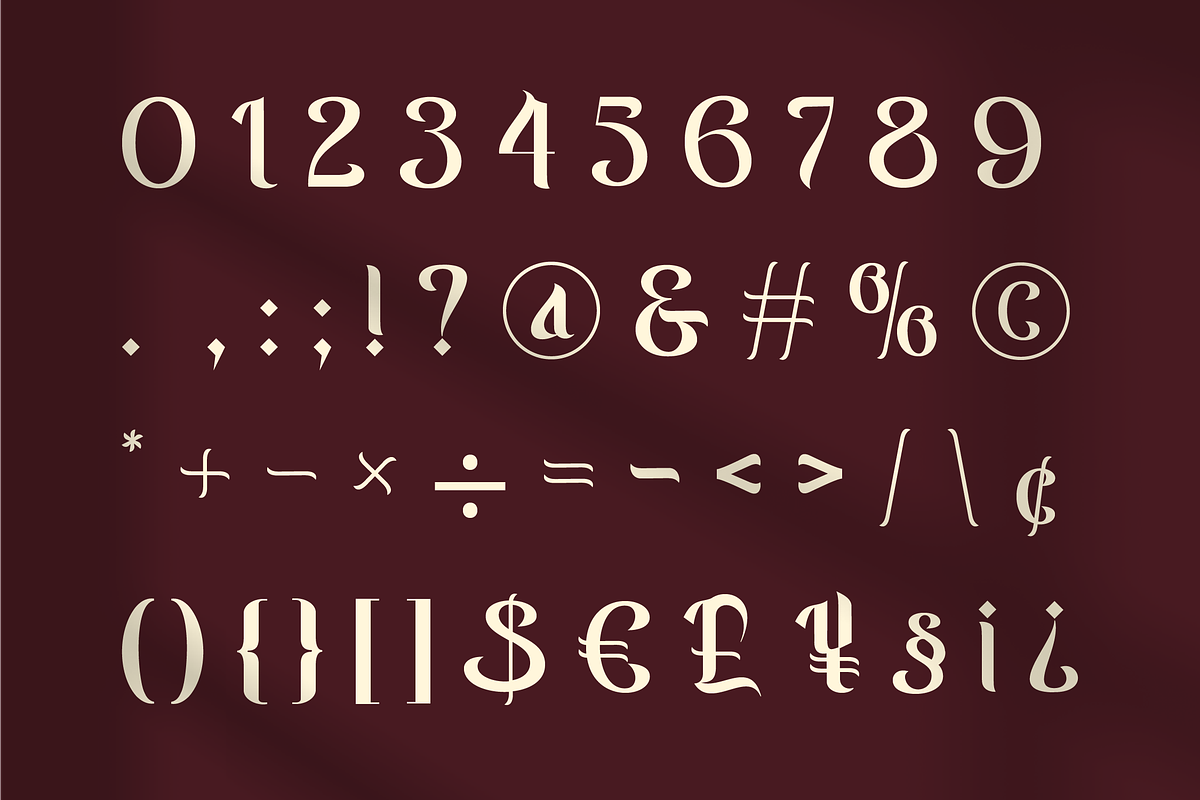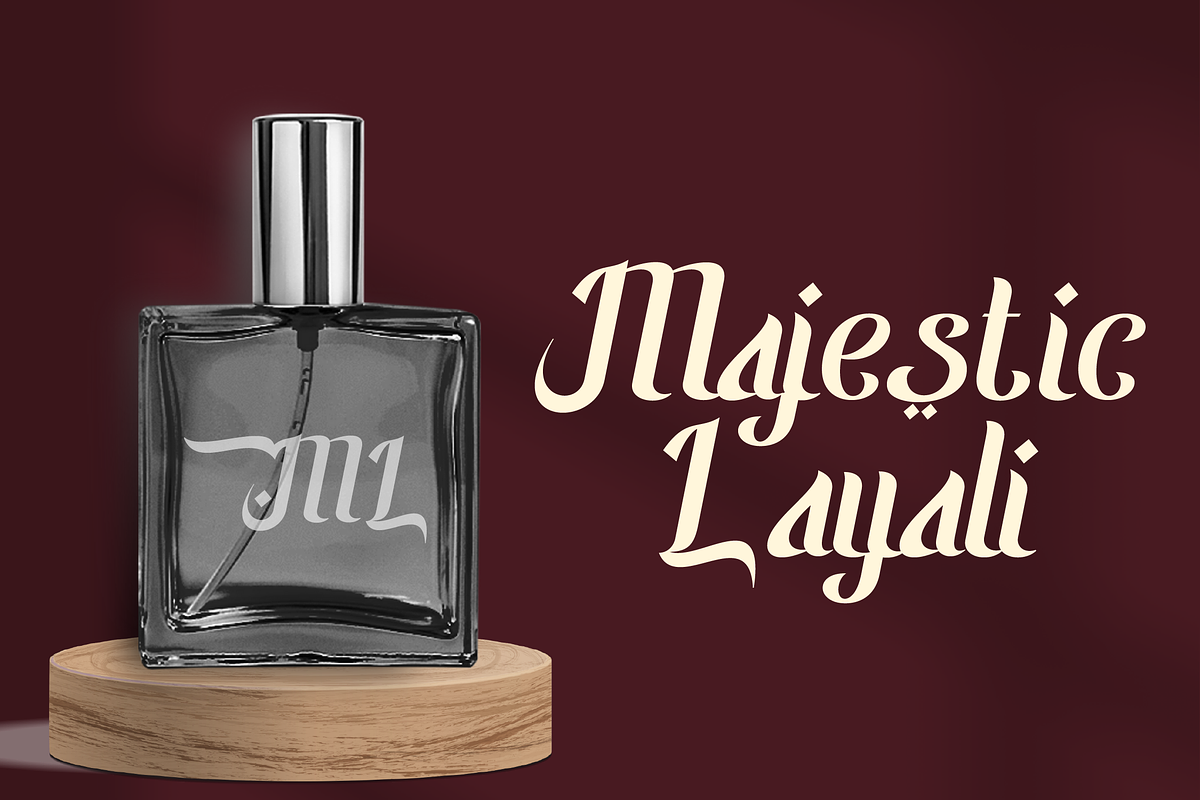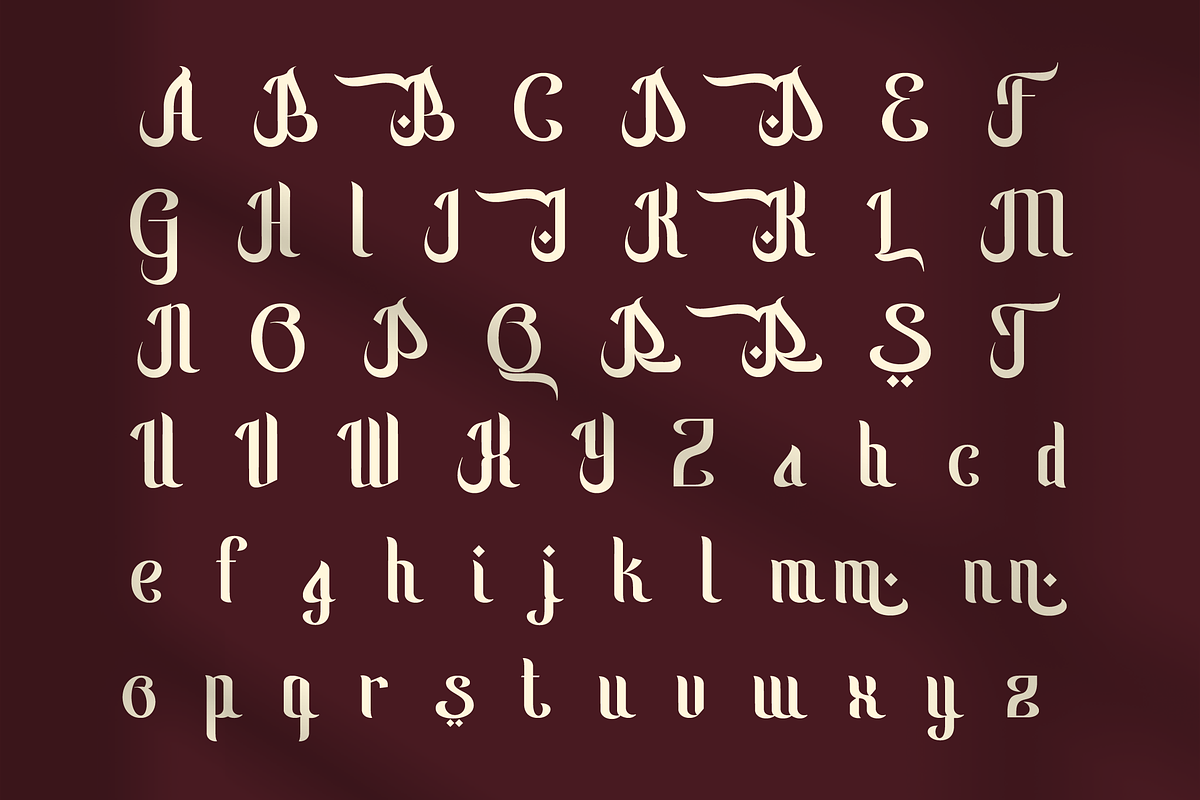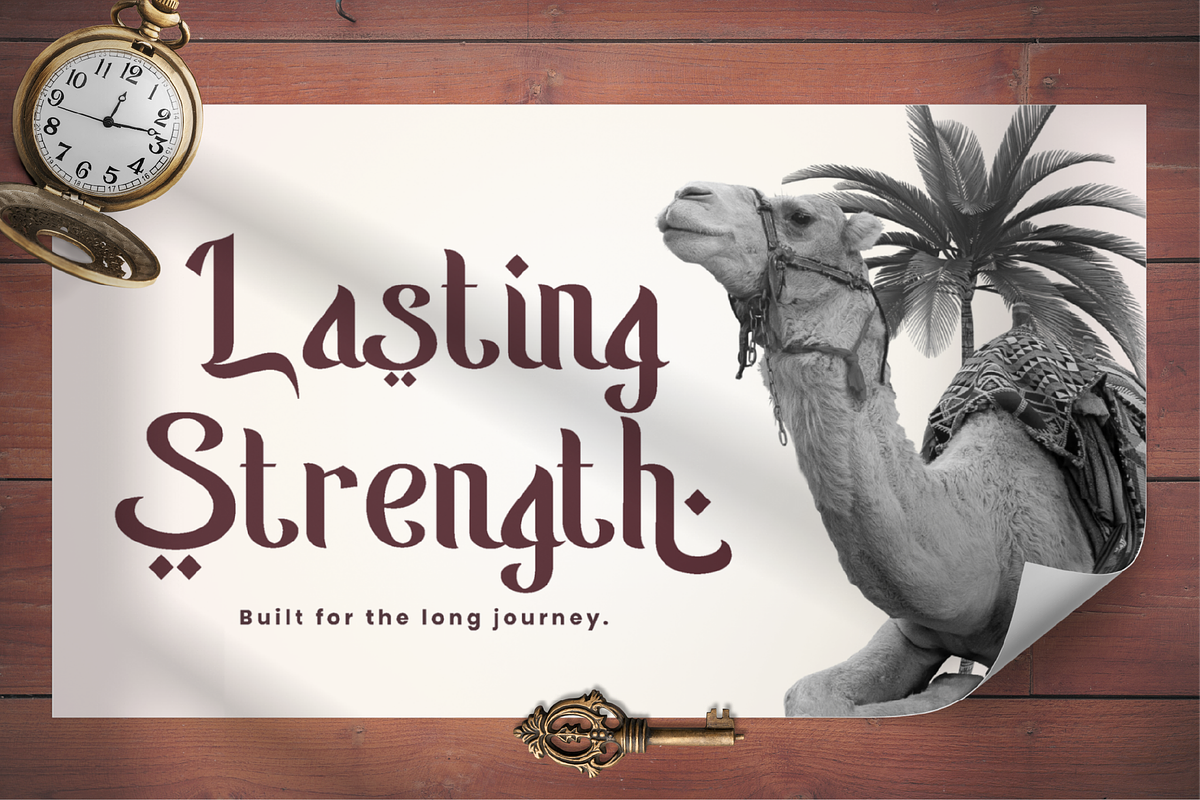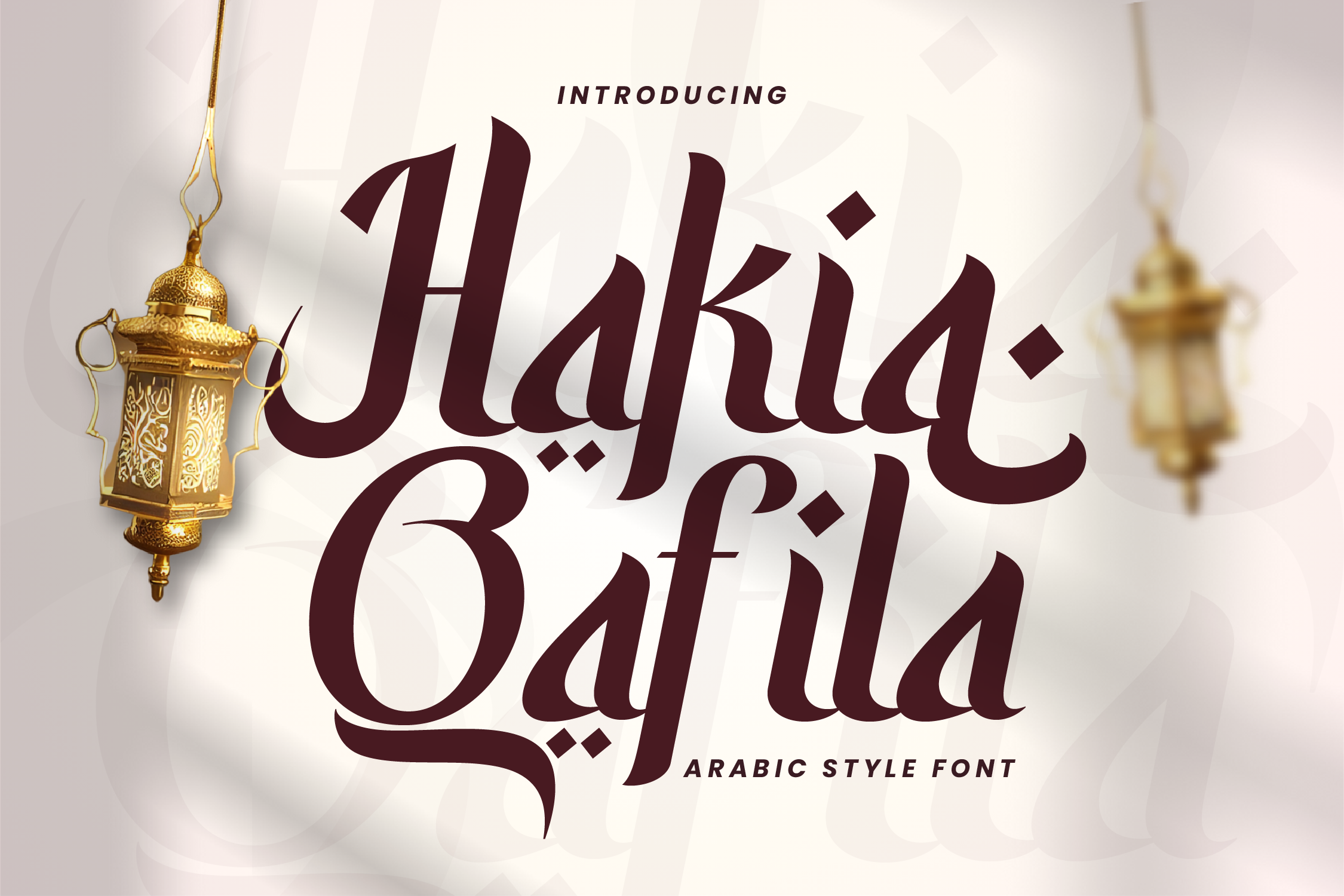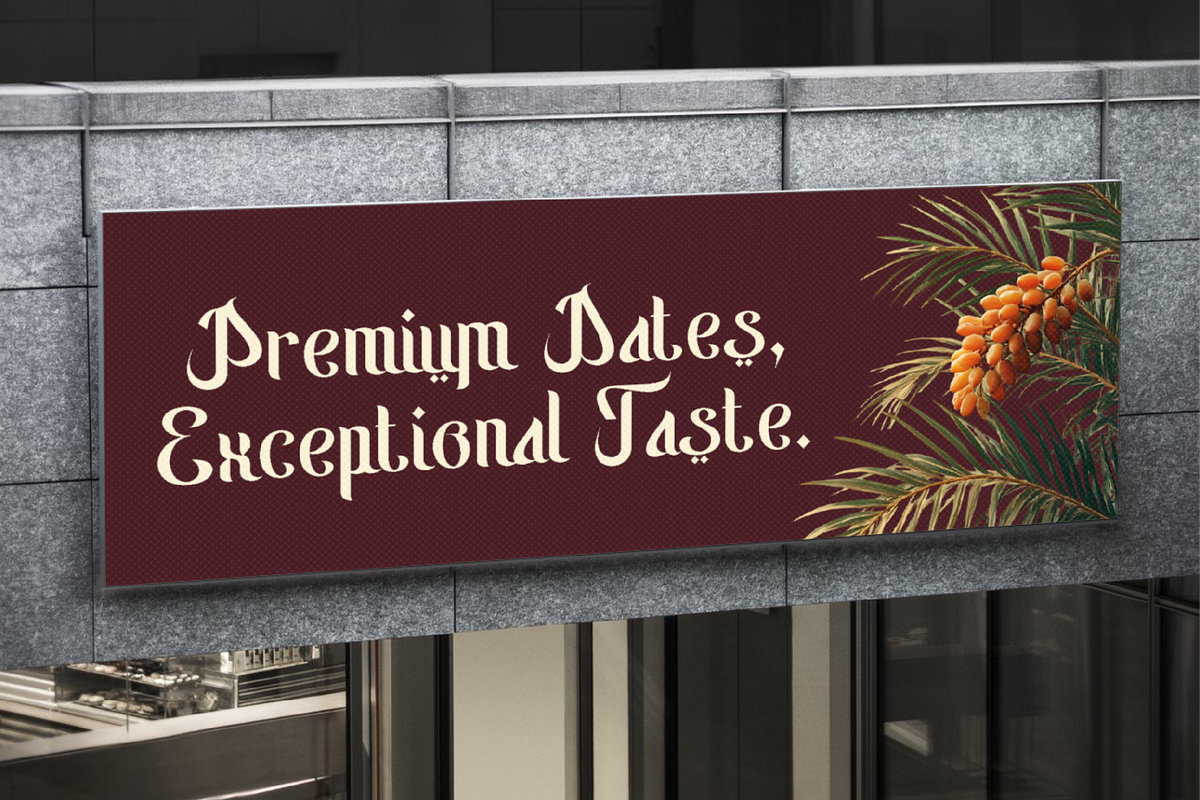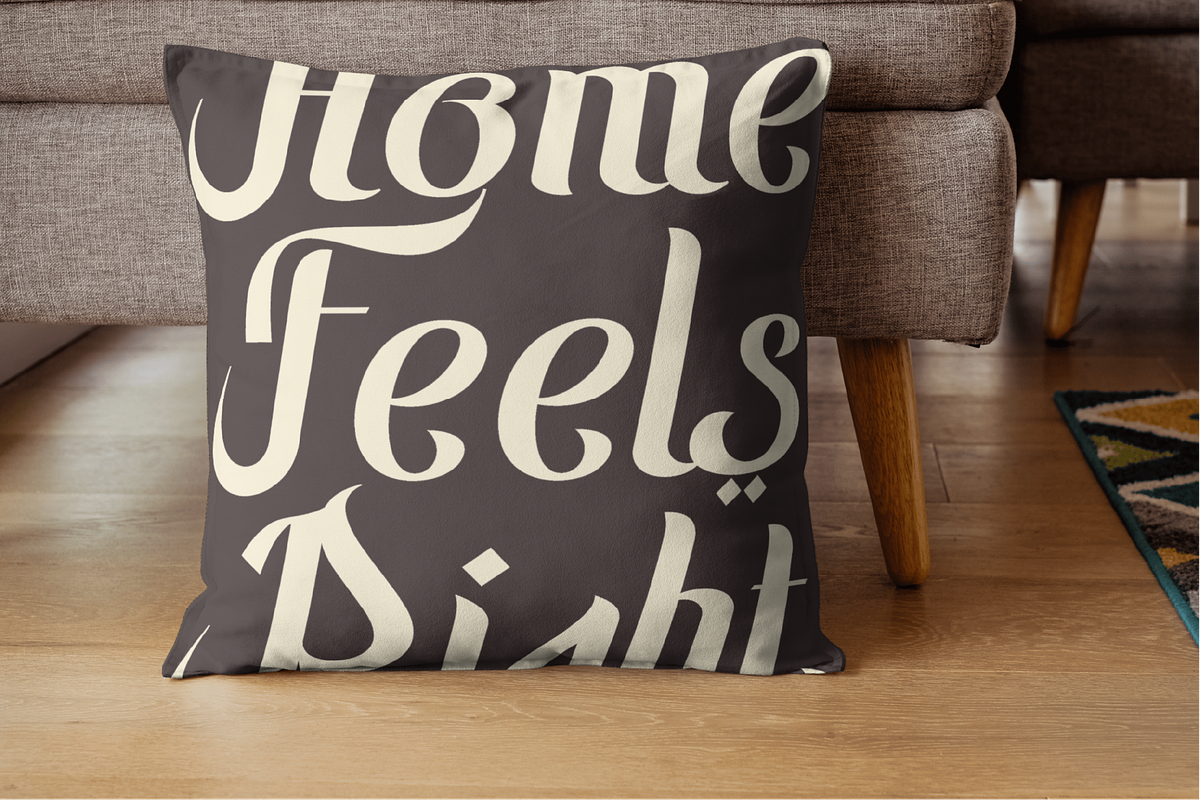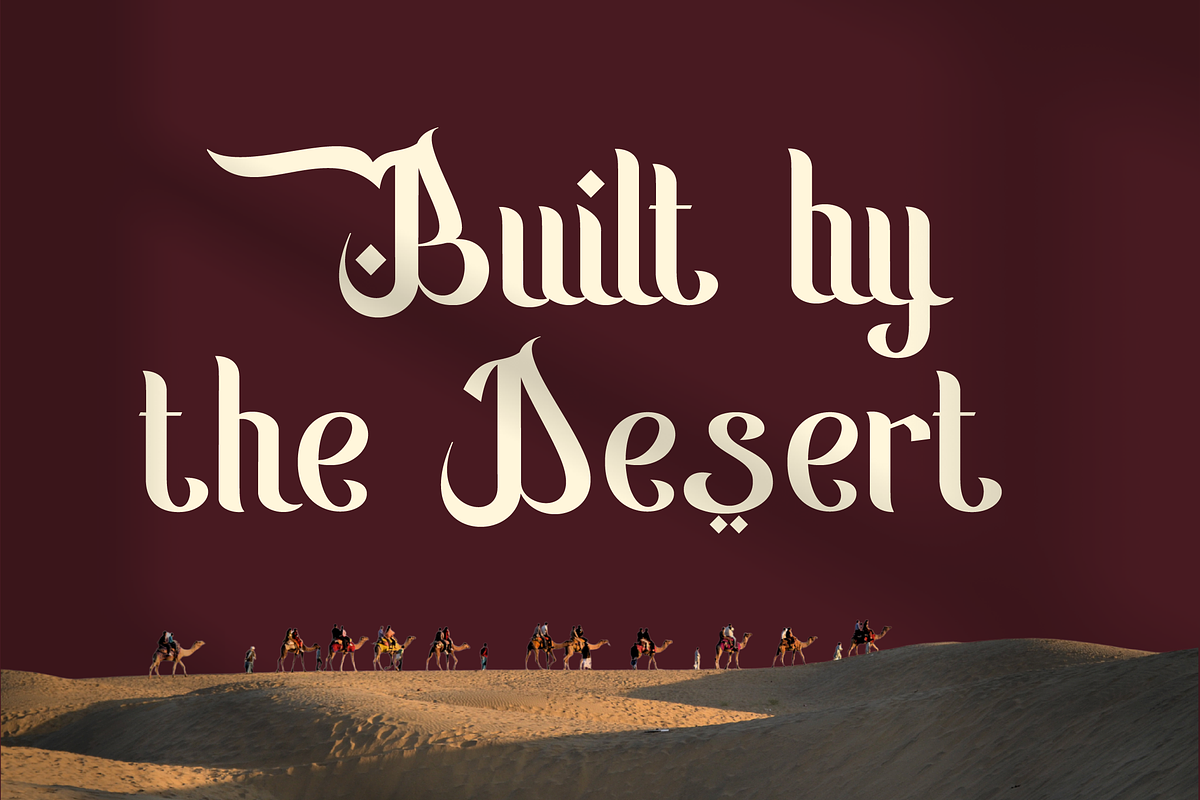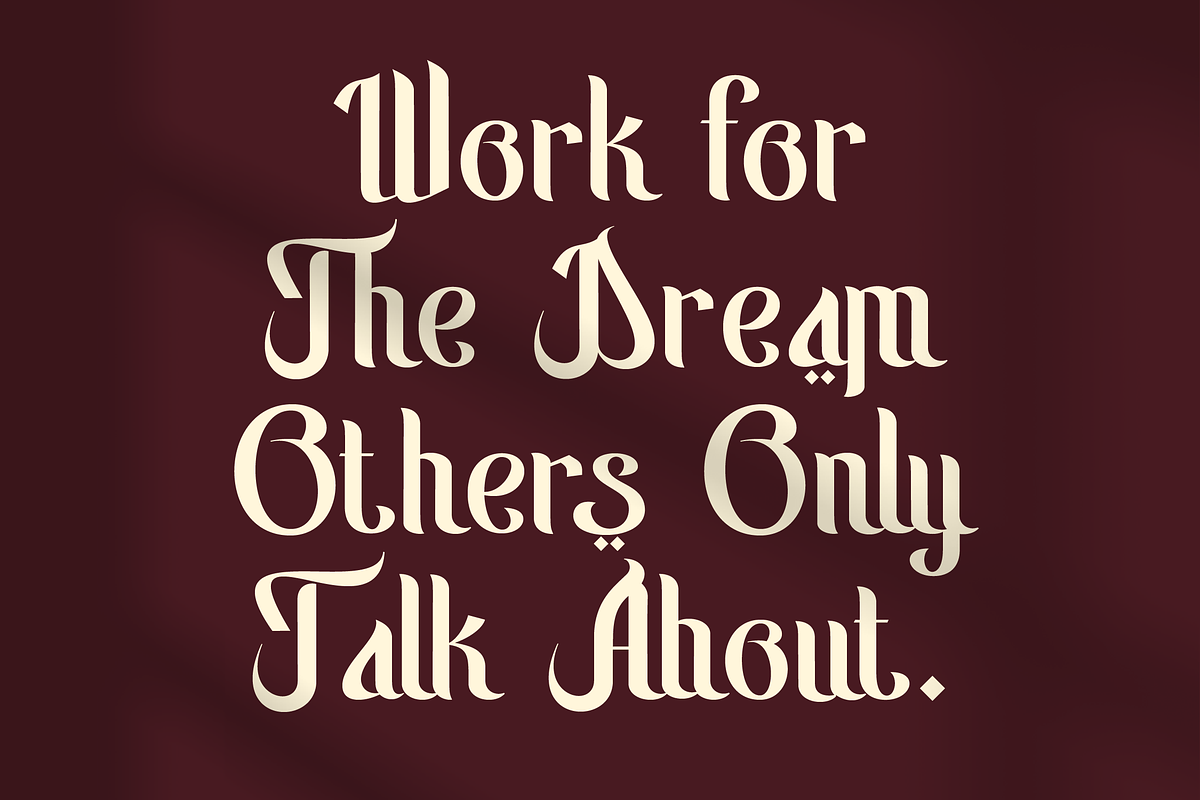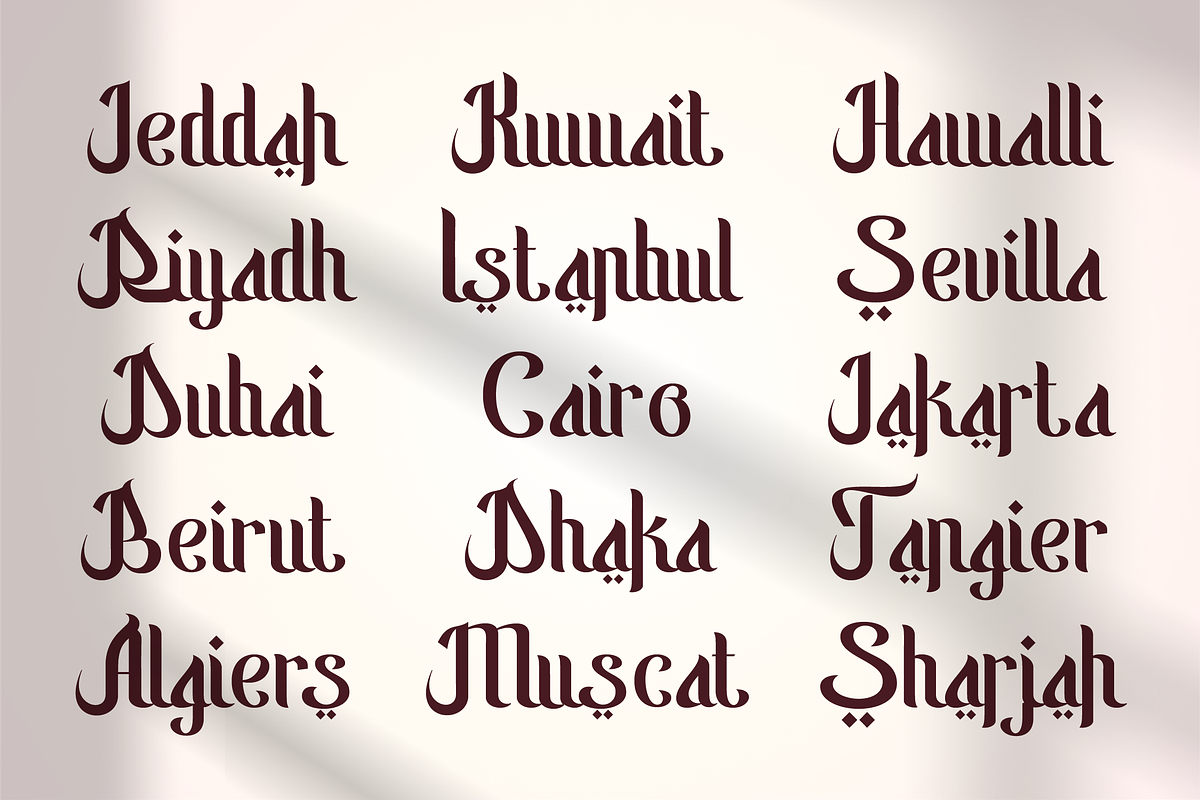
Hakia Qafila – Arabic Style Font
Hakia Qafila is inspired by the spirit of a qafila—a caravan traveling across cities, cultures, and centuries. From glowing lanterns of Middle Eastern streets to historic crossroads of trade and knowledge, this typeface carries the rhythm of journeys once written in ink, stone, and tradition.
Rooted in the elegance of Arabic calligraphy and refined through classic serif forms, Hakia Qafila balances flowing curves with confident structures. The family comes in Regular and Italic styles, offering flexibility for expressive typography—from strong headlines to elegant, flowing accents.
The Italic style adds a sense of movement and storytelling, while the Regular maintains clarity and authority. Enhanced with stylistic alternates, distinctive diacritics, and carefully crafted details, Hakia Qafila allows designers to create culturally rich and visually engaging compositions.
Supporting multilingual Latin-based languages, Hakia Qafila is suitable for global use while preserving its Middle Eastern character. Perfect for Islamic and Ramadan themes, luxury branding, editorial headlines, travel-inspired visuals, quotes, and digital design.
Hakia Qafila is more than a display typeface— it is a journey across cultures, written in letters
Best for:
- Branding & Logo Design
- Islamic & Ramadan Projects
- Posters & Headlines
- Quotes & Typography Art
- Editorial & Social Media Design
- Regular & Italic Styles
- Multilingual Support (Latin-based languages)
Hakia Qafila is not just a typeface—it’s a journey through culture, heritage, and modern design.